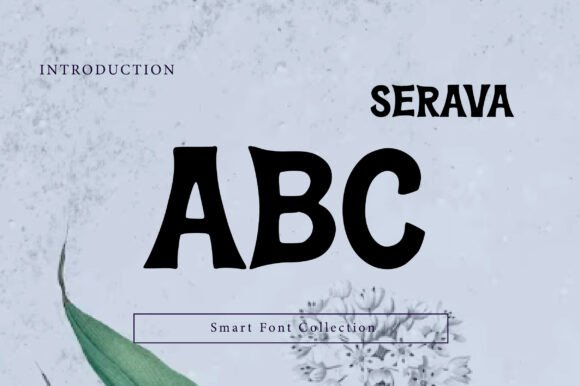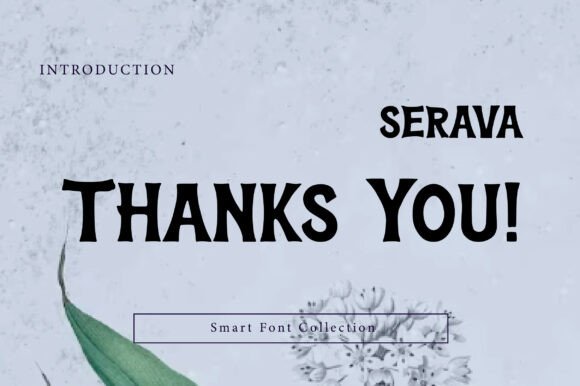
Introduction to Serava Font
Serava is a bold, expressive retro display serif font with flared strokes, soft curves, and a confident vintage personality.
Its chunky letterforms and playful proportions make it ideal for logos, posters, headlines, branding, packaging, signage, album covers, and retro-inspired designs Serava delivers a strong visual impact while retaining a warm, handcrafted feel.
Key Features of Serava Font